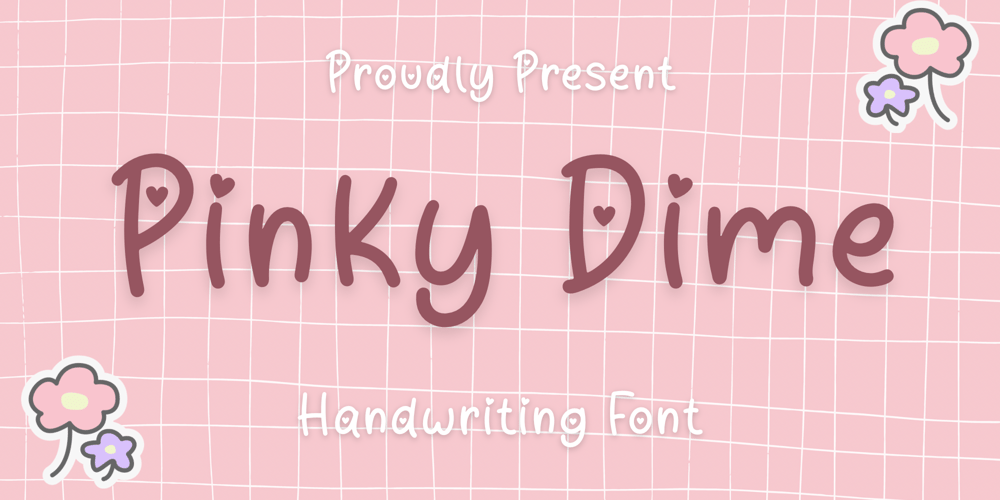
Pinky Dime
Pinky Dime font
Pinky Dime Font Family was designed by Nur Aiysah Amalia and published by Aisyah. Pinky Dime contains 1 styles and family package options. Pinky Dime Handwriting Font is a cute and playful typeface that mimics the look of handwritten notes. It features slightly slanted characters with thin strokes, giving a casual and informal vibe to any design project. This font is perfect for greeting cards, invitations, logos, and other creative projects that require a personal touch.